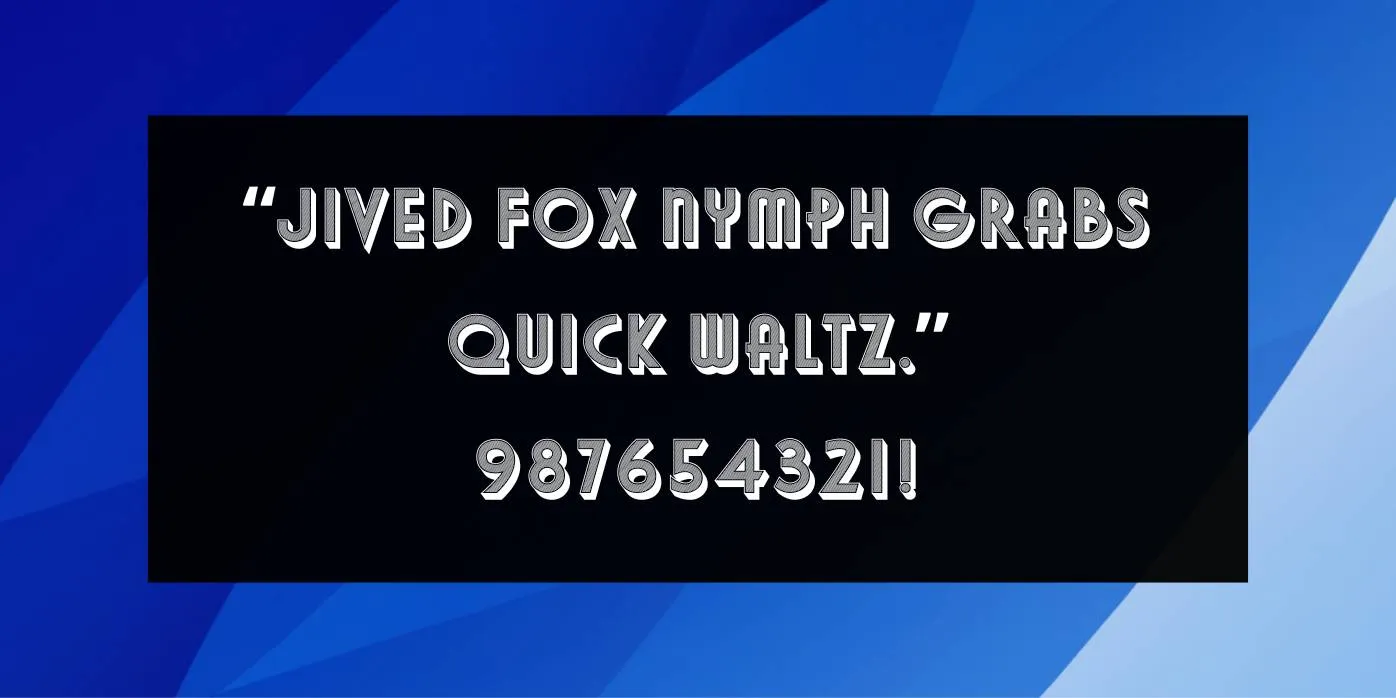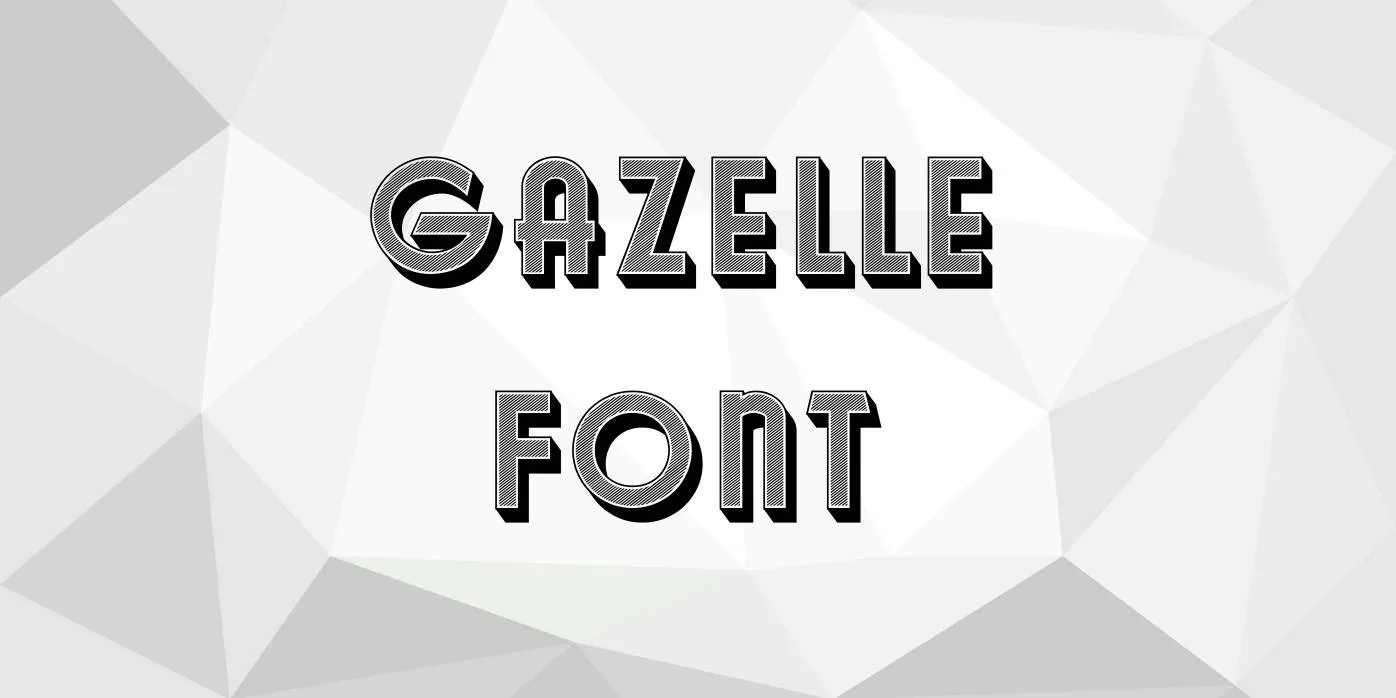
Gazelle Font
Gazelle Font is fancy font that was designed by Vladimir Nikolic. This typeface comes in both OTF and TTF formats. So, you can download this typeface in both formats. This font style has 91 glyphs and 22 characters that comprised uppercase, lowercase, and numbers.